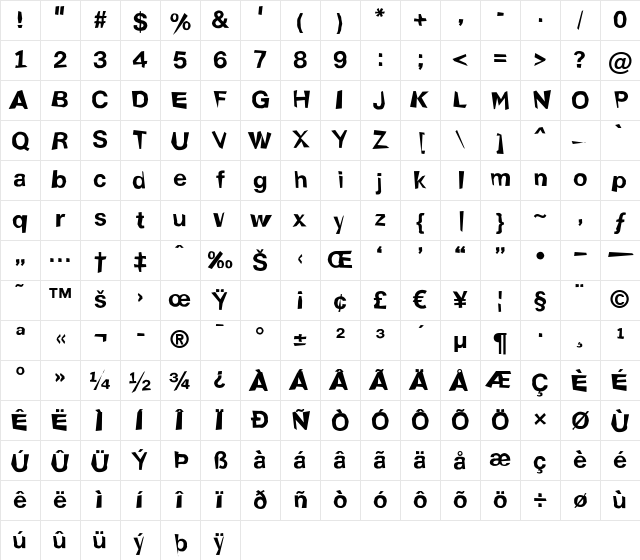
a_ReportSansDst Regular
Designer: W.Chufarofsky & M.Slutsker
Design Context for a_ReportSansDst
a_ReportSansDst is a composed and adaptable typeface that performs quietly and consistently across a wide range of design contexts.